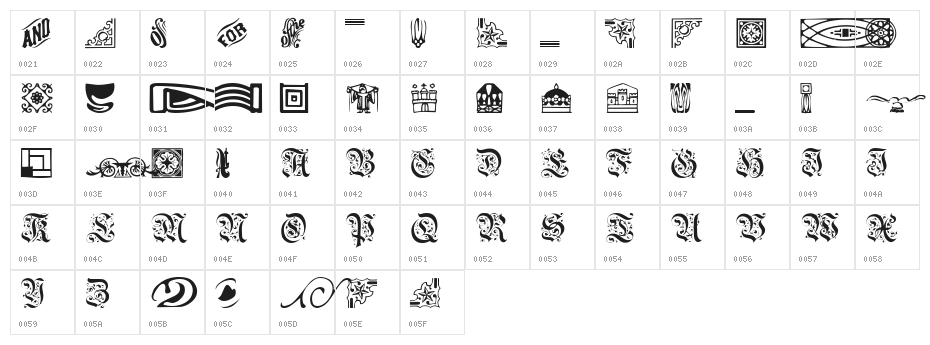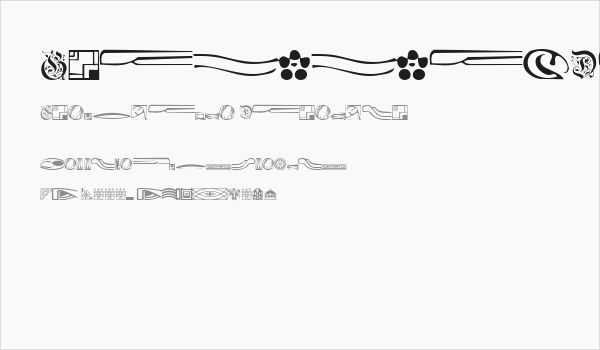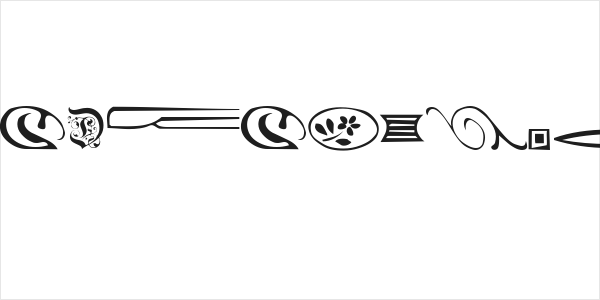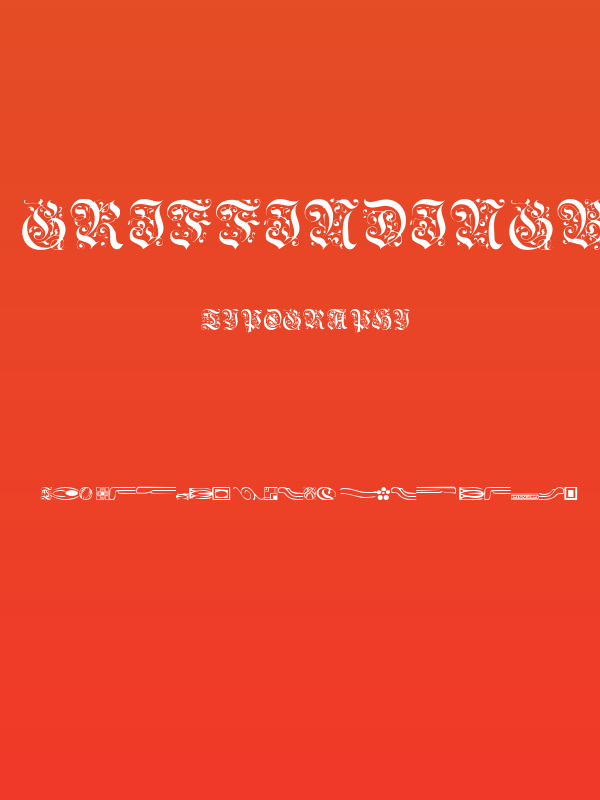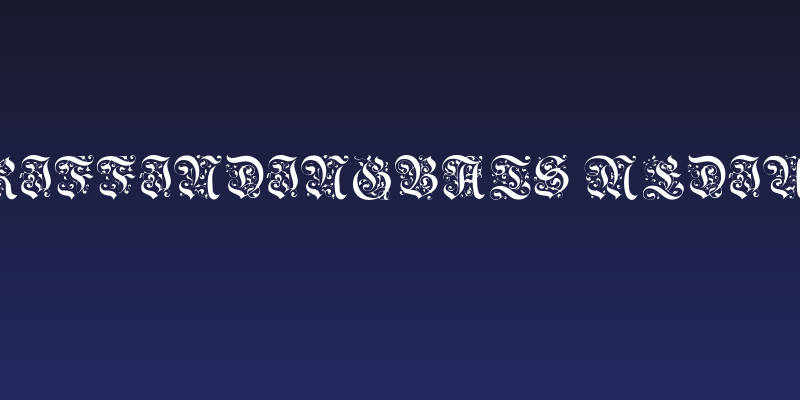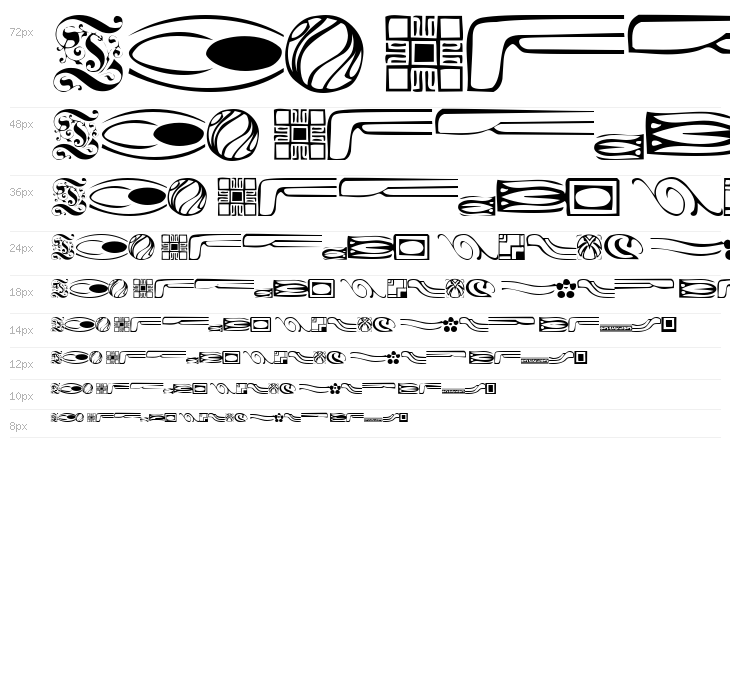
GriffinDingbats Medium Font
GriffinDingbats Medium Description
This font is an ornate and decorative typeface featuring intricate and elaborate designs within each character. The uppercase letters are embellished with floral and swirling patterns, giving them a regal and artistic appearance. The font includes a variety of decorative elements and symbols, such as borders, flourishes, and architectural motifs, which add to its unique and elaborate style. The characters are bold and striking, making them suitable for attention-grabbing designs. The overall aesthetic is reminiscent of vintage or classical art, with a touch of whimsy and elegance.
| Overall Style | Vintage, Decorative |
| Use Case | Headlines, Logos, Decorative elements |
| Proposed Projects | Ideal for wedding invitations, vintage-themed posters, decorative signage, and artistic branding projects. |